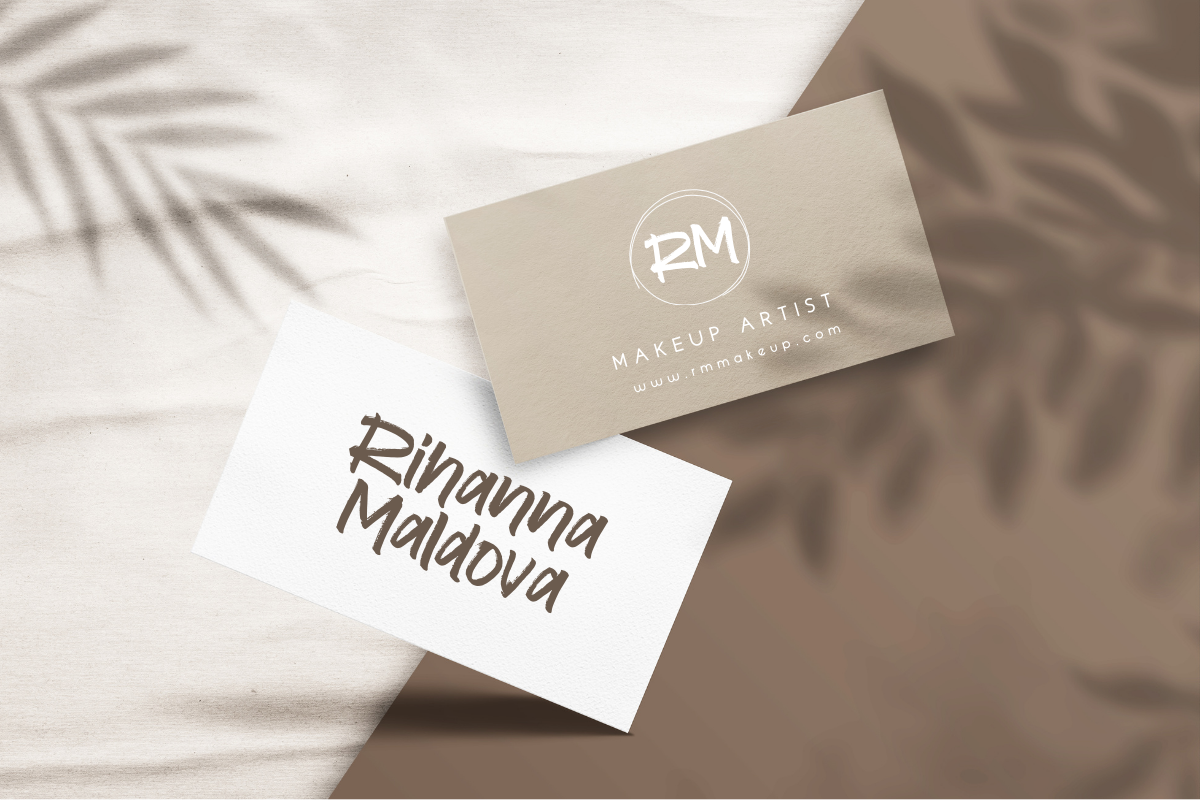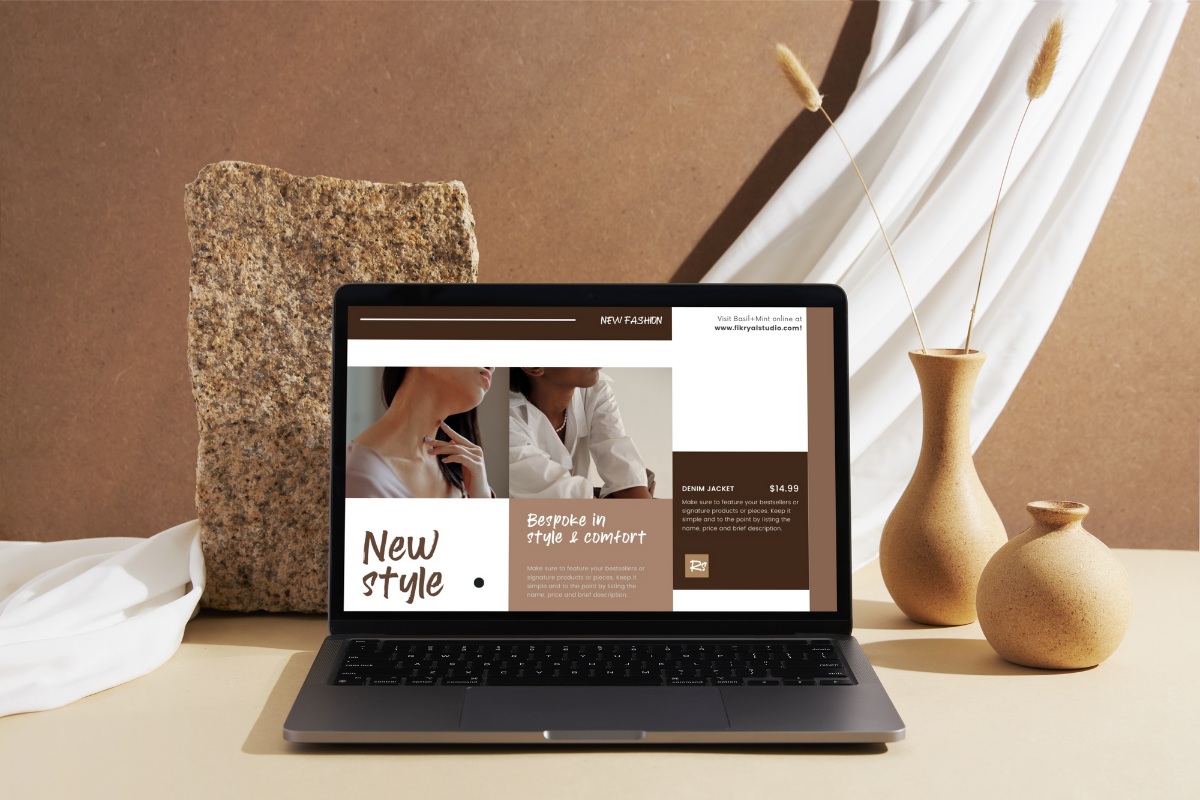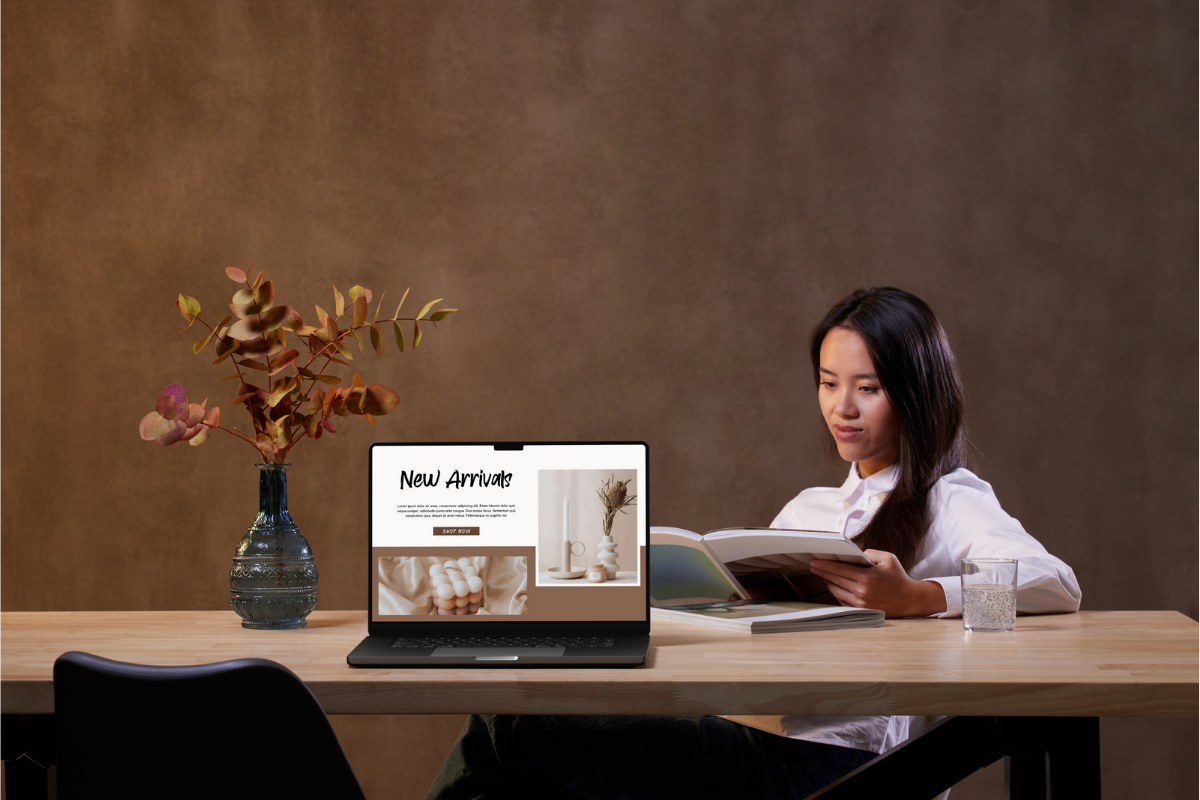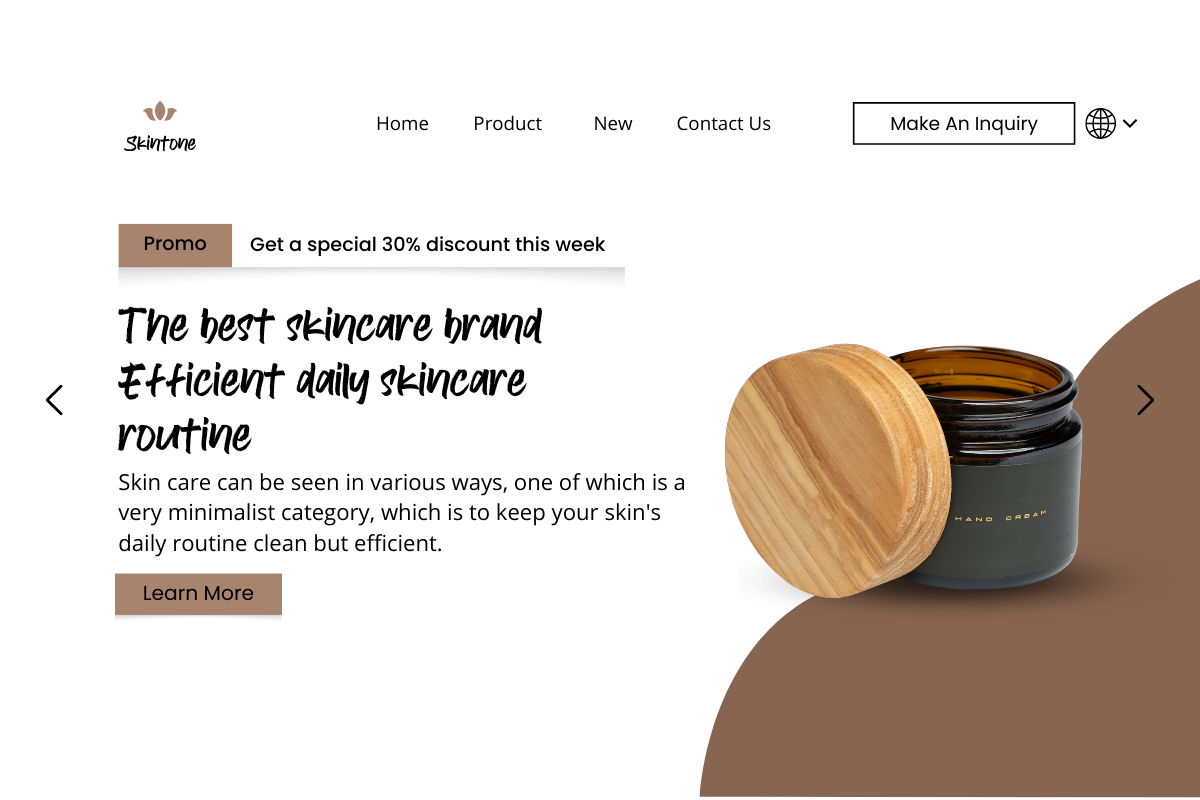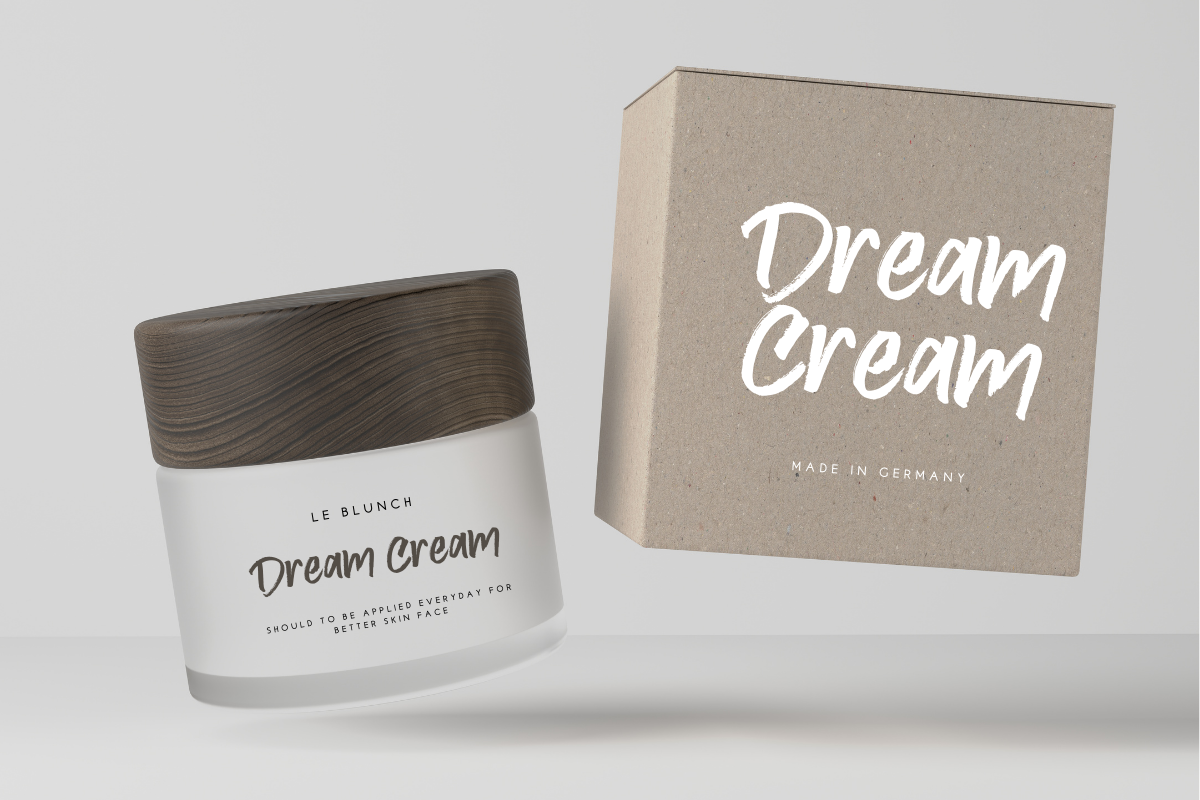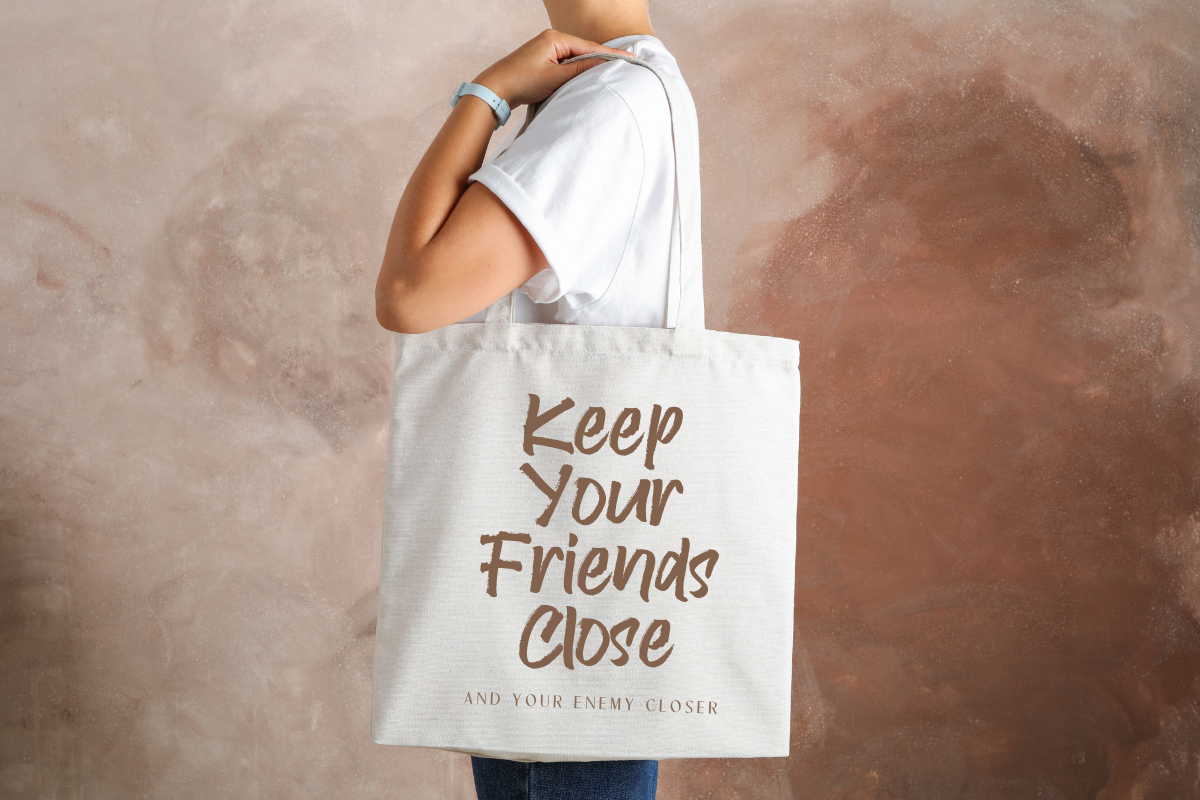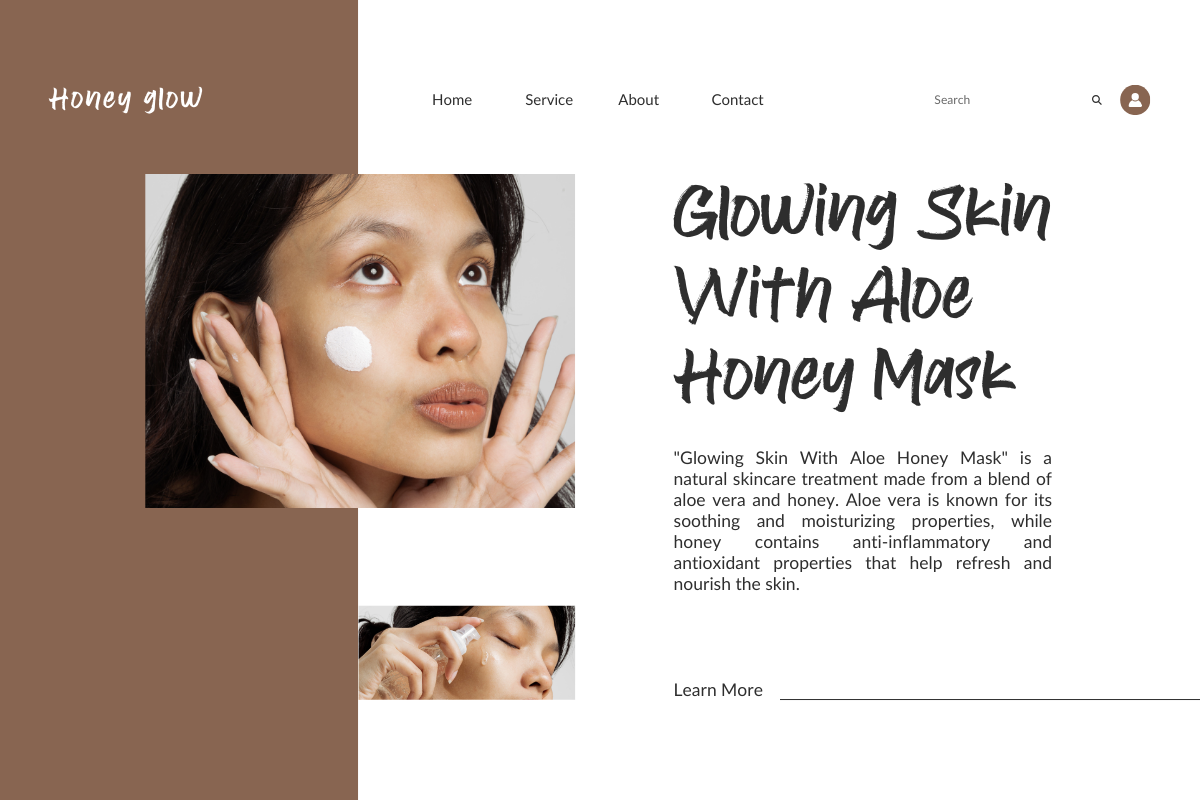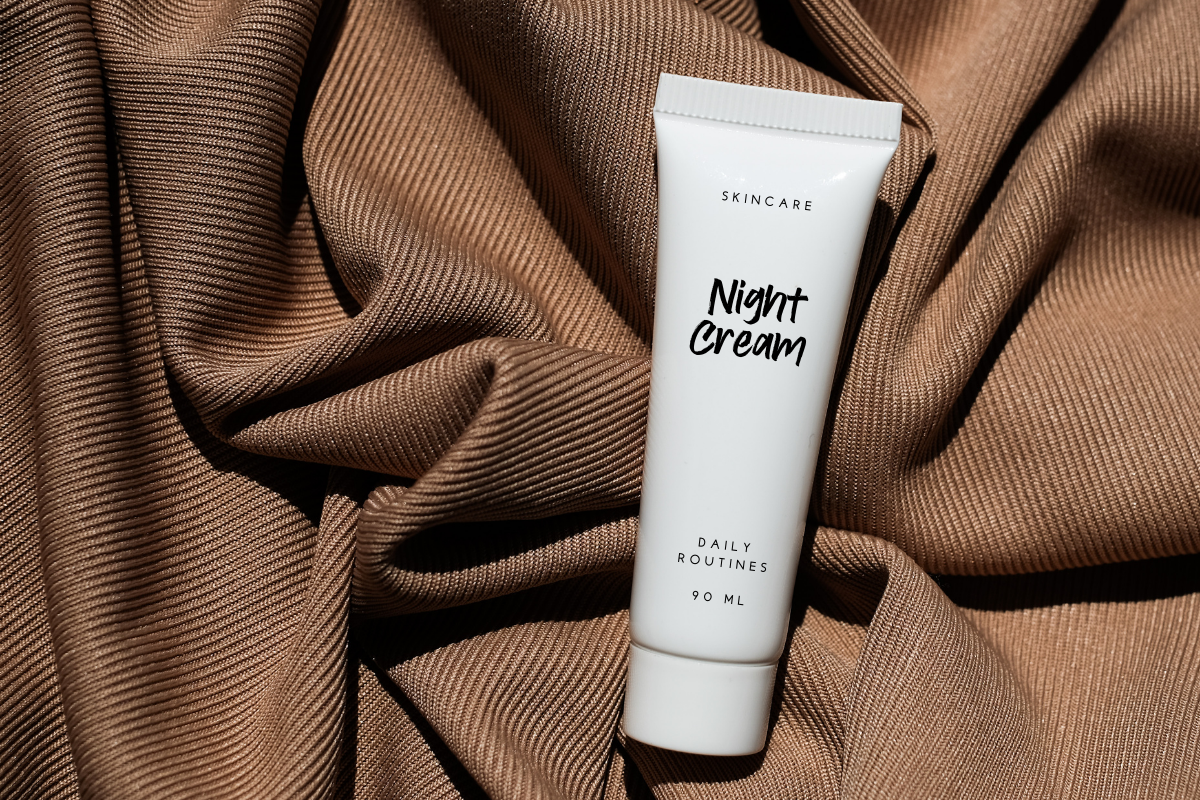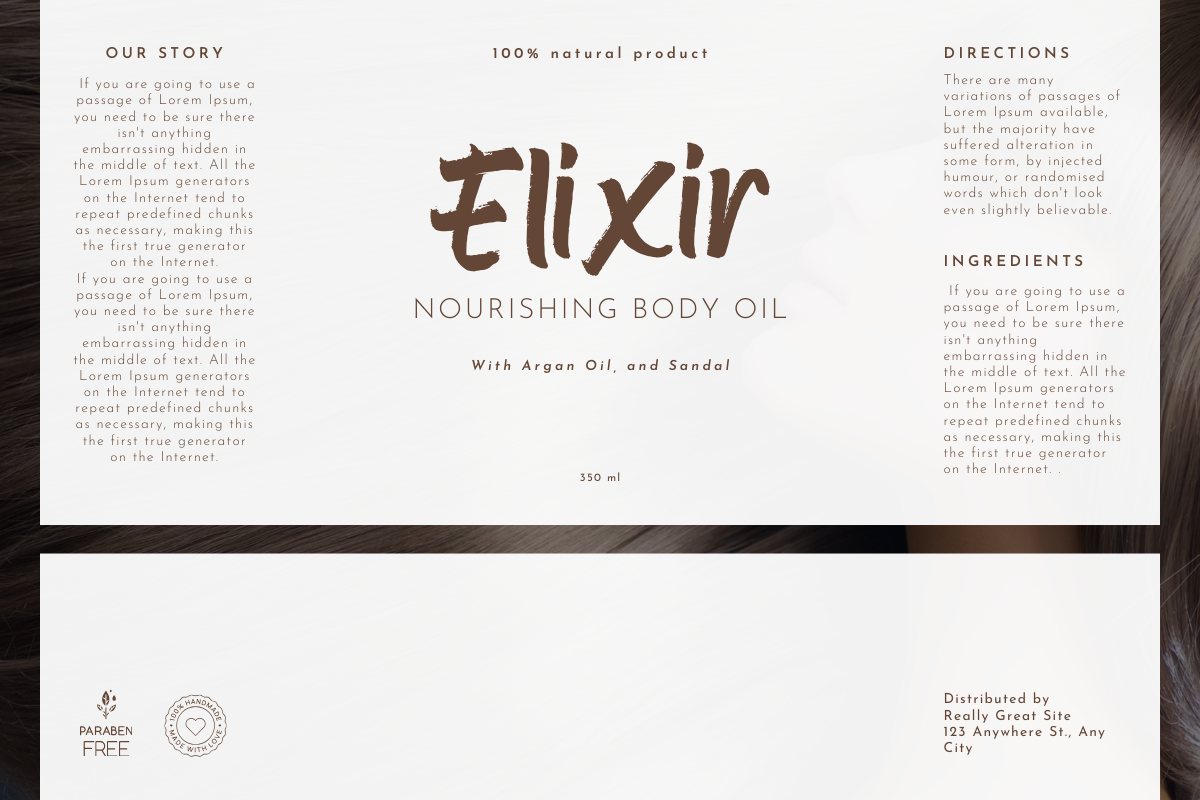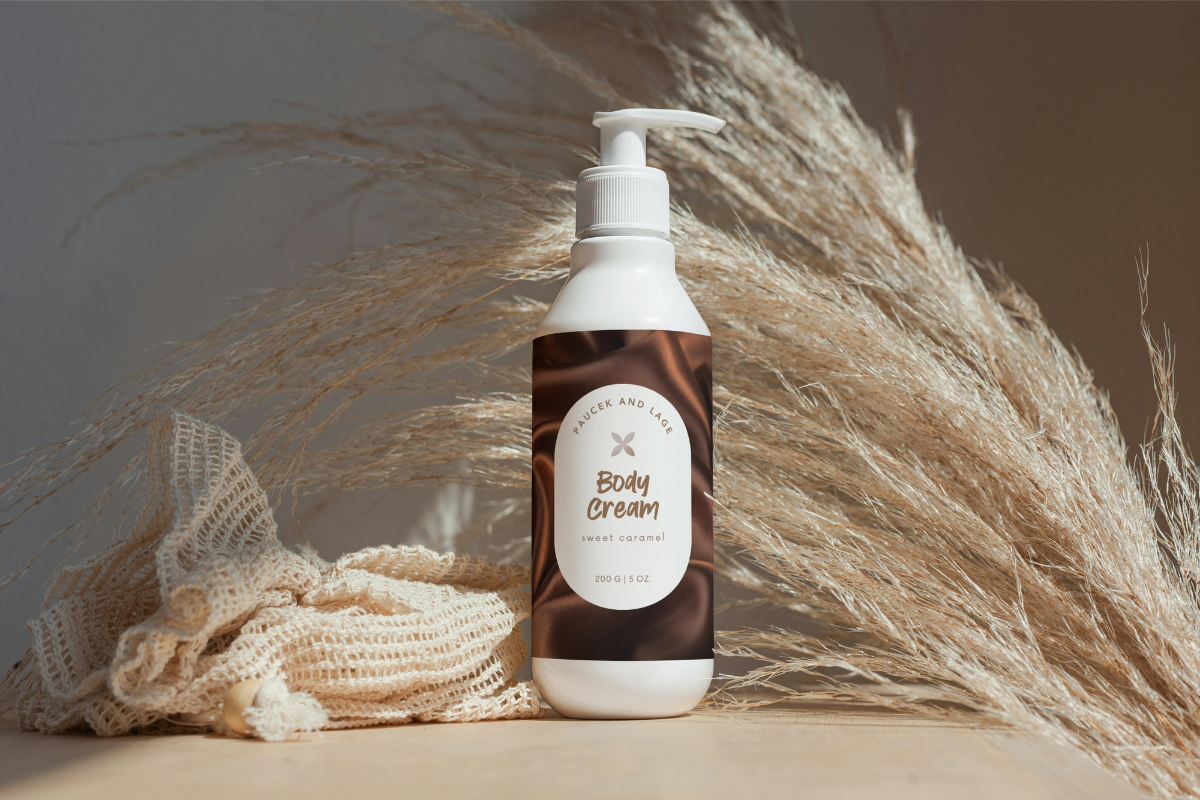
Beauty Routines – Natural Handbrush
Introducing Beauty Routines – Natural Handbrush Font” is a font that brings a touch of naturalness and softness to each letter. Crafted by hand, each stroke is unique, exuding elegance and natural beauty. This font depicts the gentleness of a woman who believes in natural beauty and takes care of herself with care. With a soft yet strong character, this font is suitable for various designs that want to convey messages about beauty, health, and self-care.